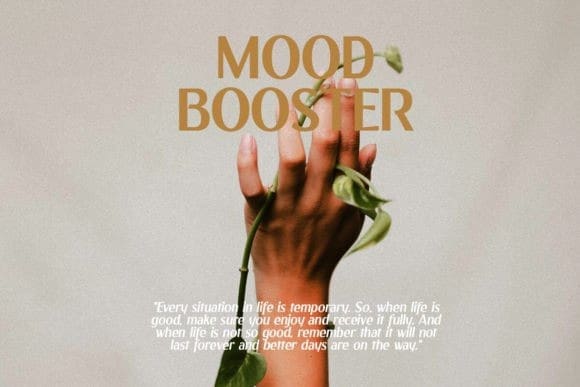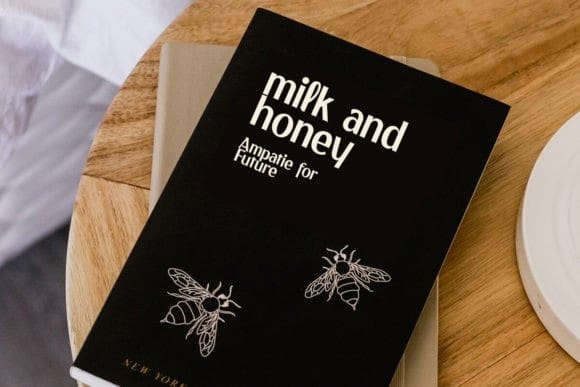
Velvetta Font
Velvetta Font, epitomizes beauty and elegance in every character. With two distinct styles, Regular and Italic, this font is the perfect choice to infuse sophistication into your design projects.